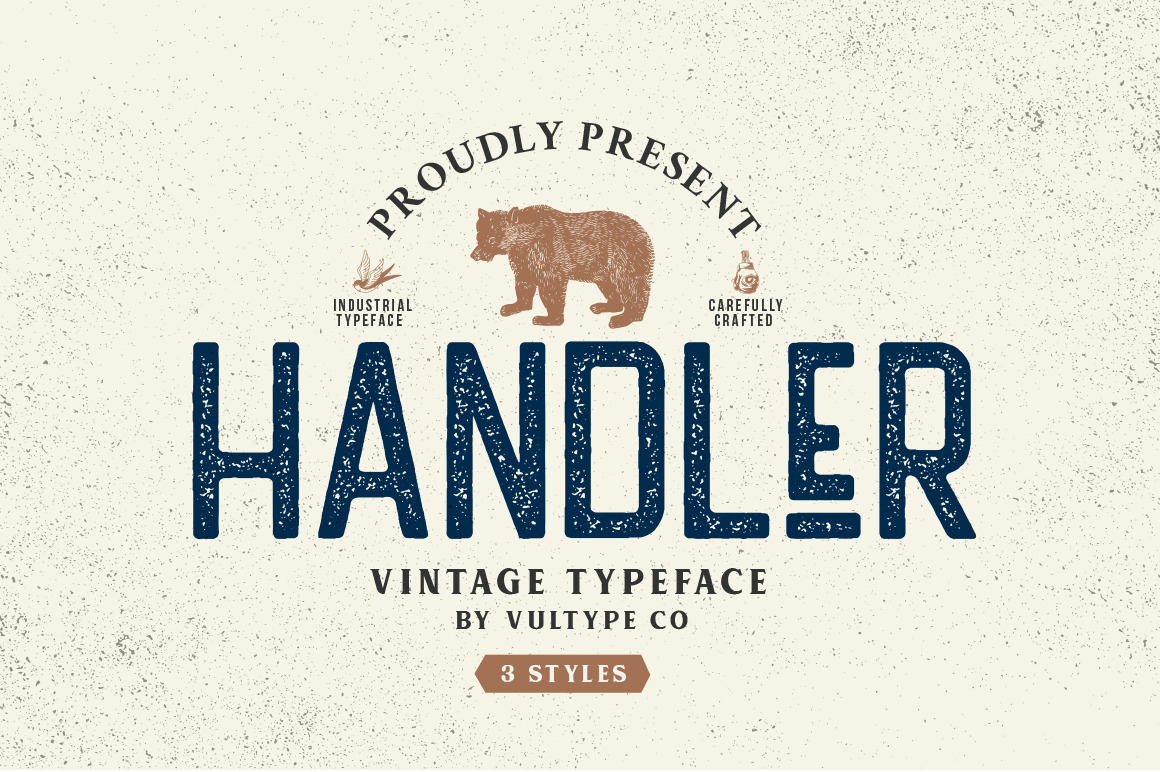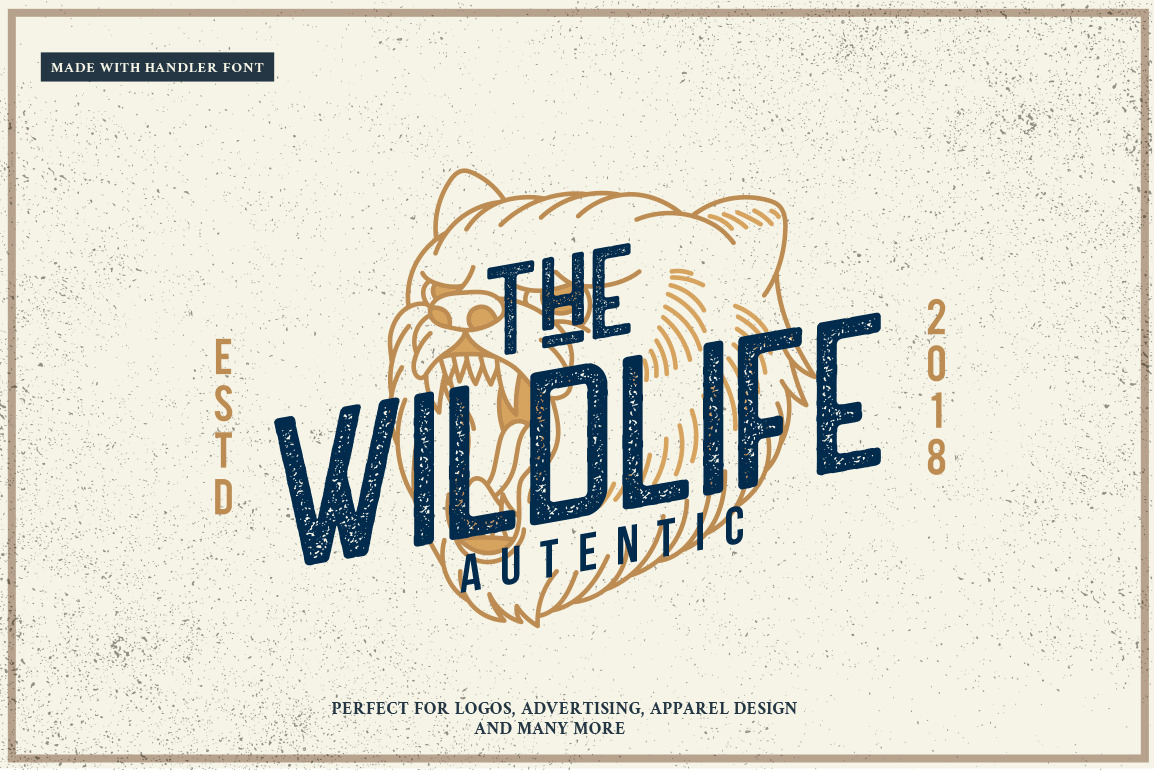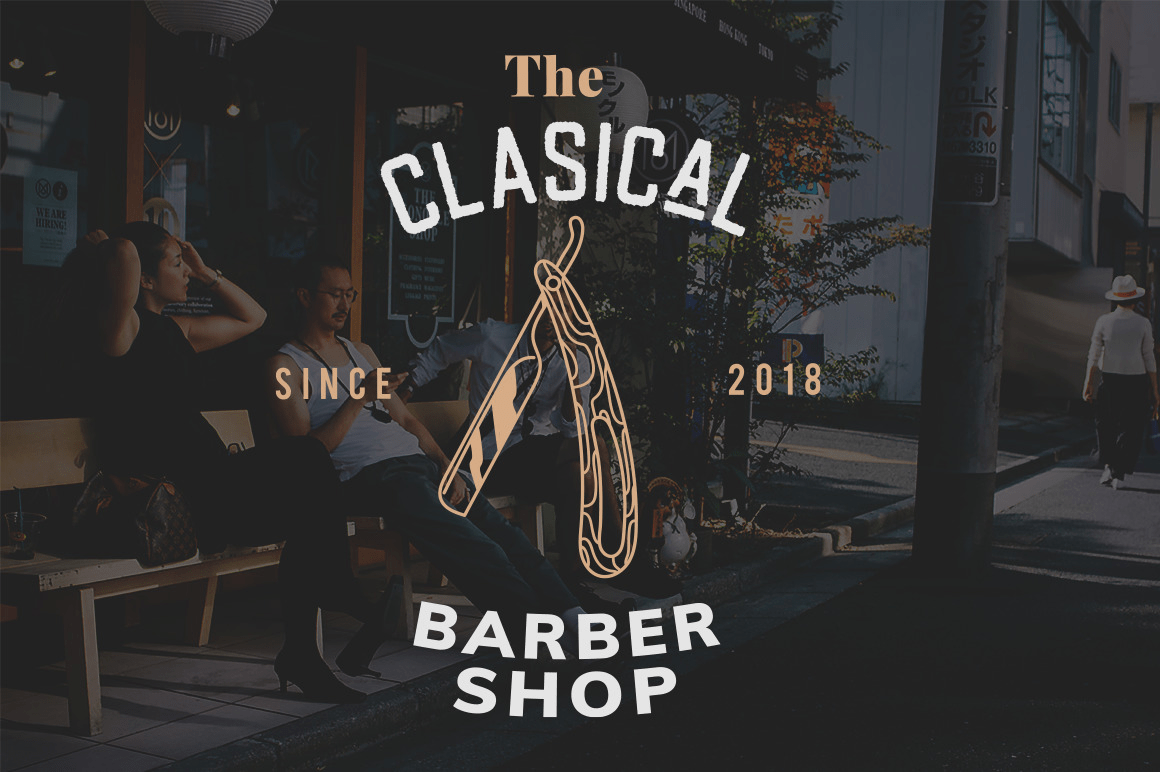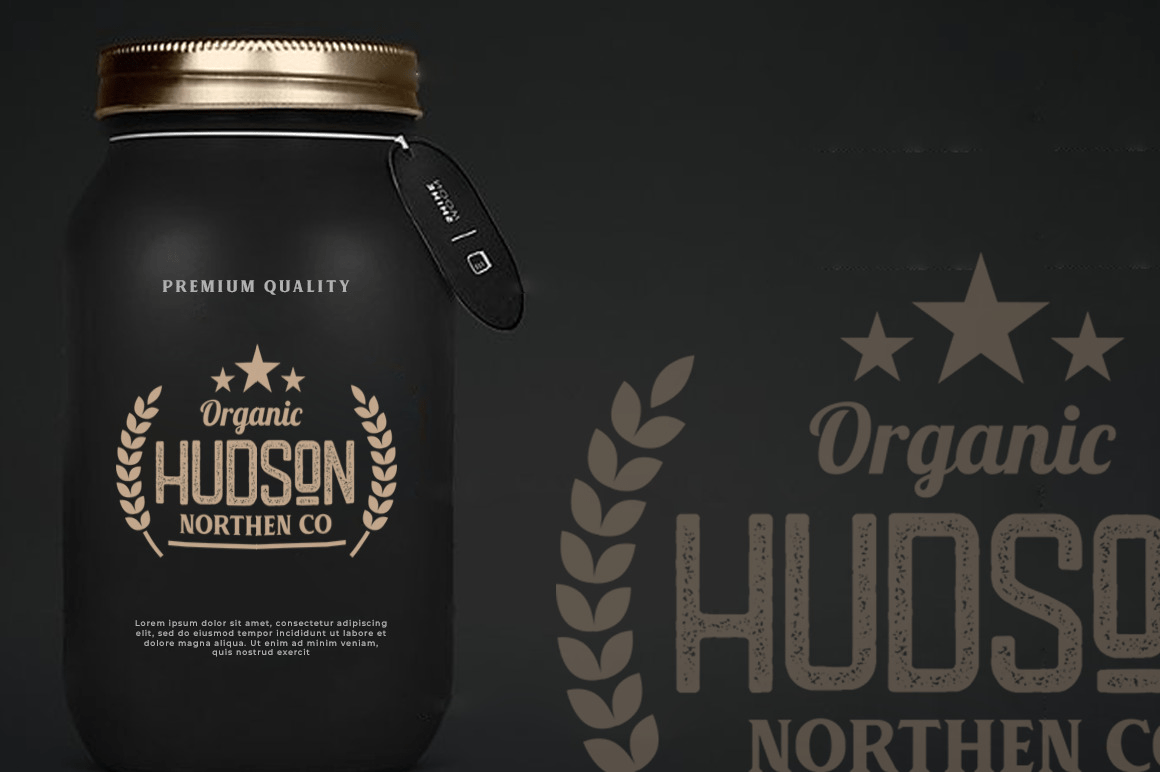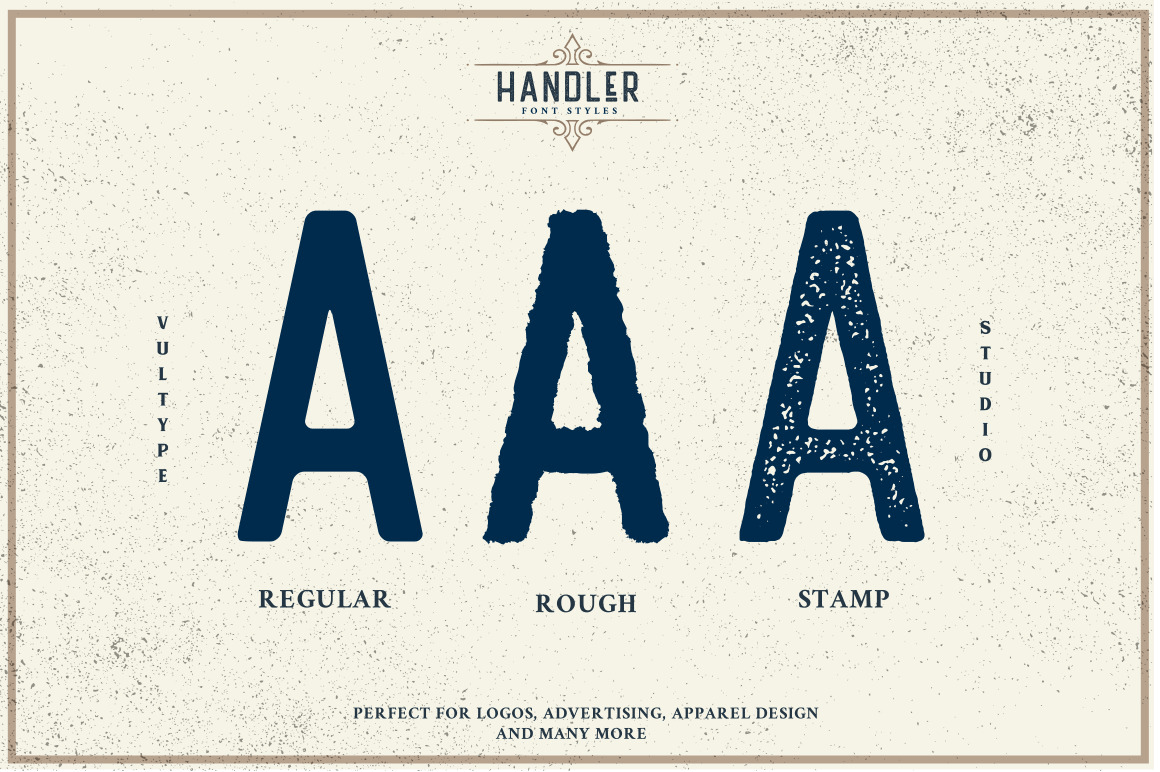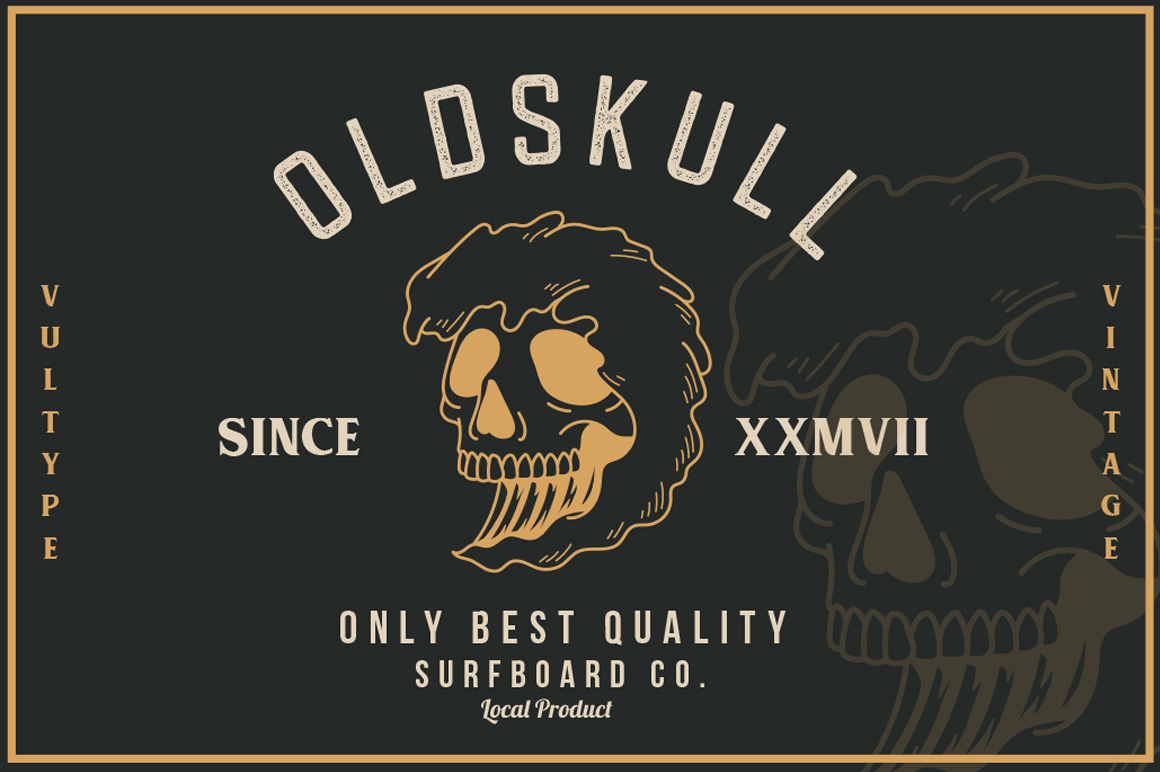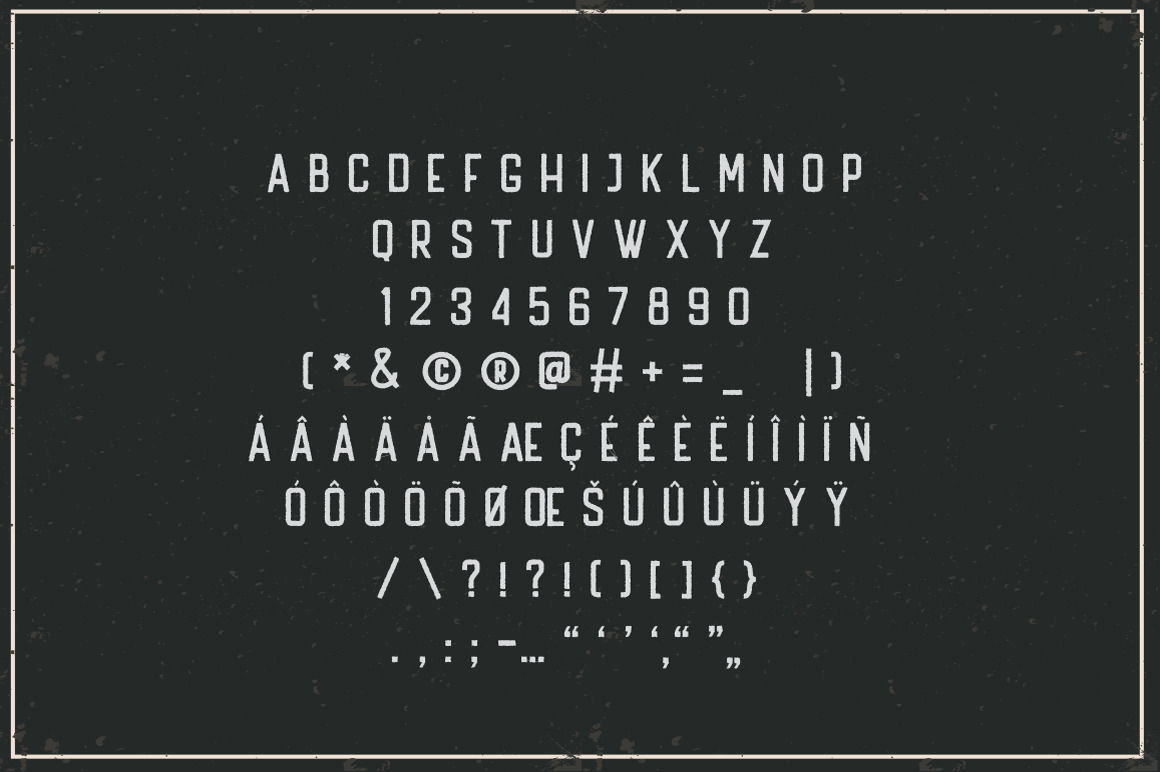
Handler
Font Family by Vultype Co
Handler is a vintage sans serif font including Rough & Stamped versions, suitable for your next creative project like art, modern envelope lettering or book design, craft design, any branding project, and pop vintage design.
Handler Regular
Handler Stamp
Handler Rough